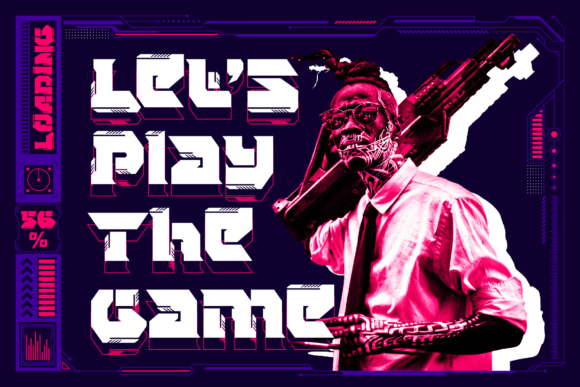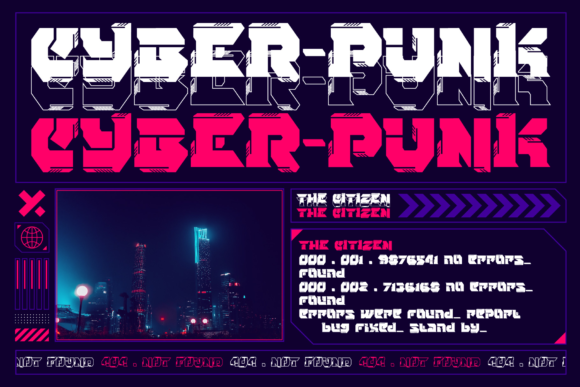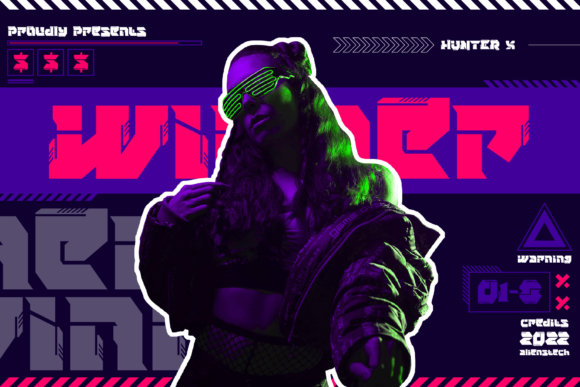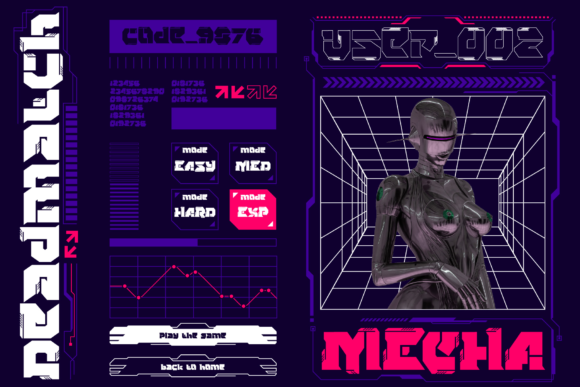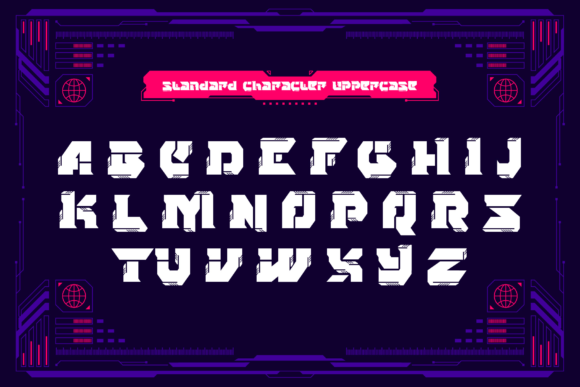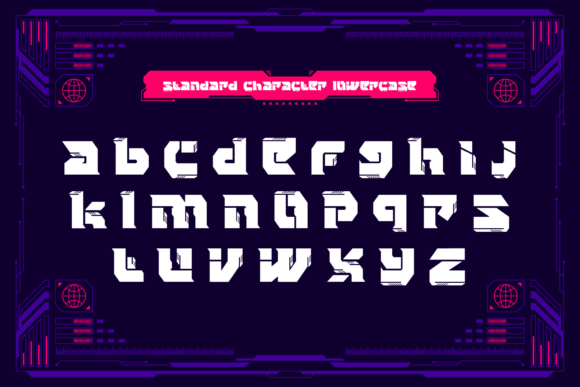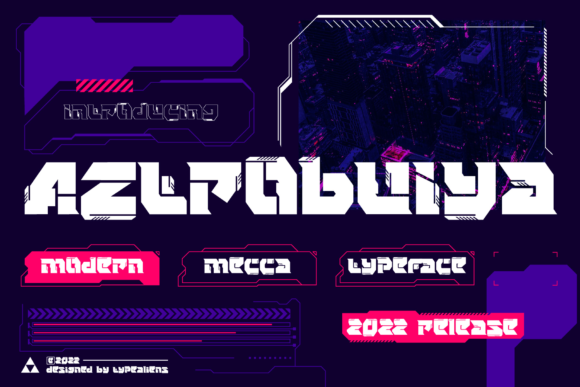
Aztrobuiya Font: A Futuristic Display Font for Bold Designs
In the world of typography, fonts play a crucial role in conveying the tone and personality of a design. For designers and crafters looking to add a touch of futurism to their work, Aztrobuiya Font is an excellent choice. This bold and unique display font is inspired by futuristic designs and robot costumes, making it perfect for character fashion designs, steam punk style designs, and more.
What is Aztrobuiya Font?
Aztrobuiya Font is a display font that boasts a distinctive and eye-catching style. Its futuristic design is reminiscent of robot costumes, making it an ideal choice for designers who want to add a touch of sci-fi flair to their work. The font’s bold and chunky texture gives it a strong presence, making it perfect for headlines, titles, and other display text.
Key Features of Aztrobuiya Font
- Bold and Unique Style: Aztrobuiya Font has a bold and unique style that is sure to grab attention.
- Futuristic Design: The font’s design is inspired by futuristic concepts and robot costumes, giving it a truly out-of-this-world feel.
- Suitable for Character Fashion Designs: Aztrobuiya Font is perfect for character fashion designs, adding a touch of personality and style to your characters.
- Ideal for Steam Punk Style Designs: The font’s futuristic design also makes it suitable for steam punk style designs, adding a touch of industrial chic to your work.
Use Cases for Aztrobuiya Font
Aztrobuiya Font is a versatile font that can be used in a variety of design projects. Here are some use cases where Aztrobuiya Font shines:
- Character Fashion Designs: Use Aztrobuiya Font to add a touch of personality to your character designs. The font’s bold and futuristic style is perfect for creating unique and eye-catching character profiles.
- Steam Punk Style Designs: Aztrobuiya Font is also ideal for steam punk style designs, adding a touch of industrial chic to your work. Use it to create bold and eye-catching titles, headings, and other display text.
- Poster and Flyer Design: The font’s bold and attention-grabbing style makes it perfect for poster and flyer design. Use Aztrobuiya Font to create eye-catching headlines and titles that grab attention.
- Branding and Logo Design: Aztrobuiya Font can also be used in branding and logo design, adding a touch of futurism and personality to your brand identity.
Tips for Using Aztrobuiya Font
Here are some tips for using Aztrobuiya Font effectively in your designs:
- Use it Sparingly: Aztrobuiya Font is a bold and attention-grabbing font, so use it sparingly to avoid overwhelming your design.
- Pair it with a Simple Font: Pair Aztrobuiya Font with a simple font to create contrast and add visual interest to your design.
- Experiment with Colors: Aztrobuiya Font looks great in bold and bright colors, so experiment with different colors to add a pop of personality to your design.
Aztrobuiya Font is a unique and bold display font that is perfect for designers and crafters looking to add a touch of futurism to their work. With its futuristic design and robot-inspired style, Aztrobuiya Font is ideal for character fashion designs, steam punk style designs, and more. By following the tips outlined above, you can use Aztrobuiya Font to create bold and eye-catching designs that grab attention.